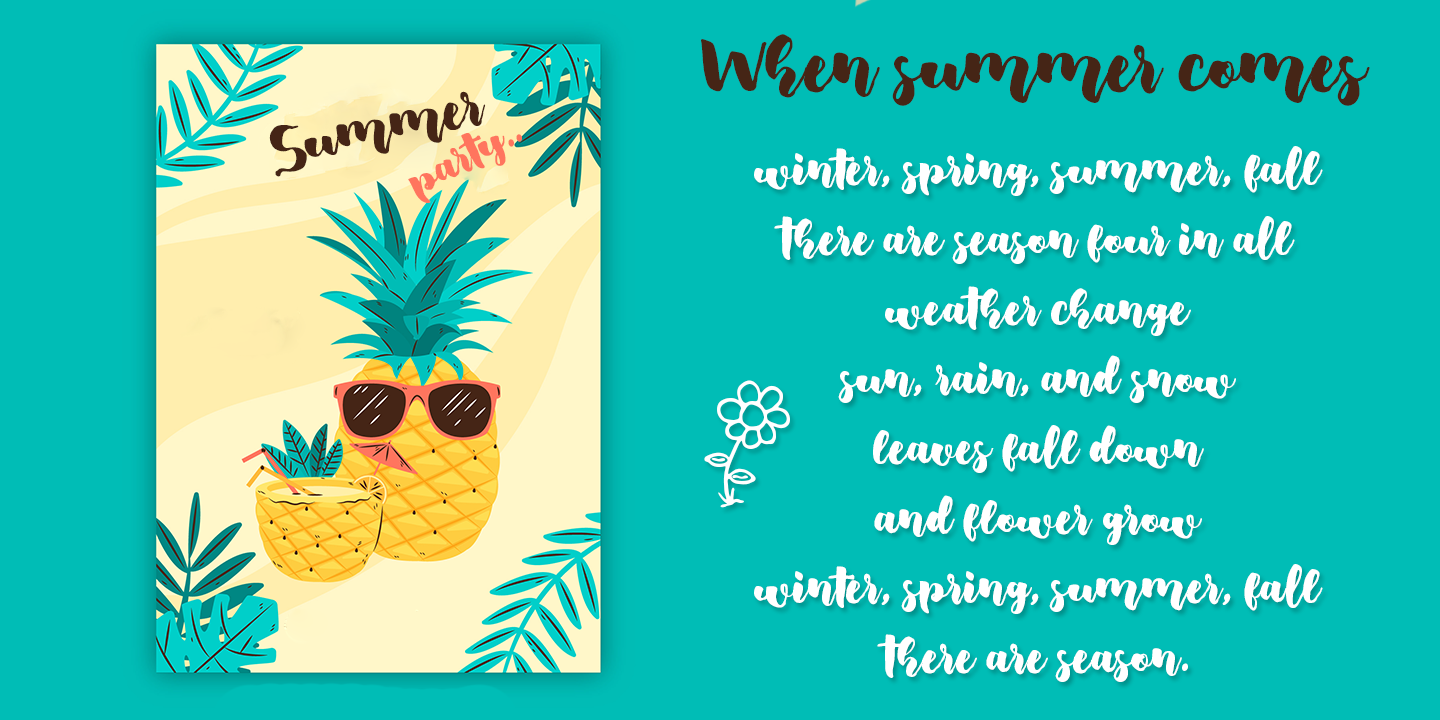
Fresh Hansler contains a script style, a capitals style as well as a set of extras. They are made with brushes and so they look modern, organic, dynamic, and energetic. This family can be used for various purposes such as titles, signatures, logos, correspondence, wedding invitations, letterhead, signage, labels, bulletins, posters, badges, and more.